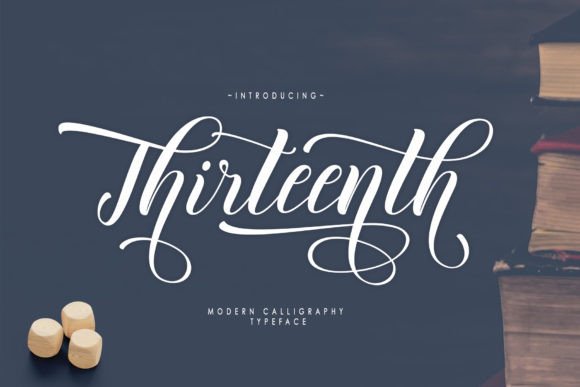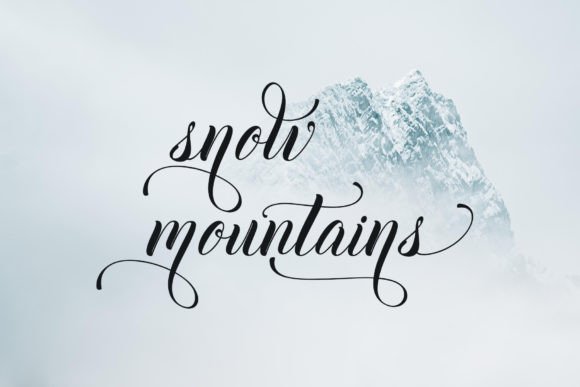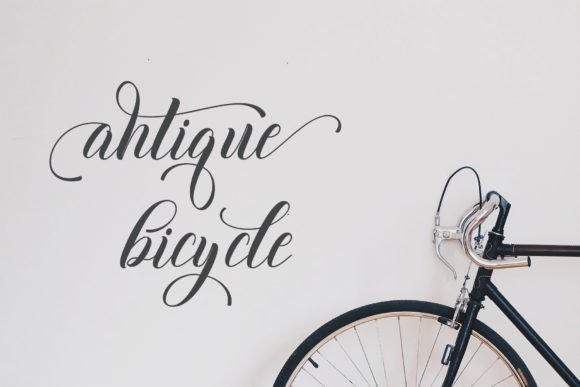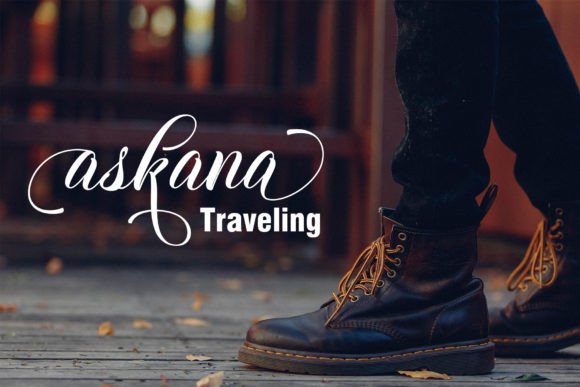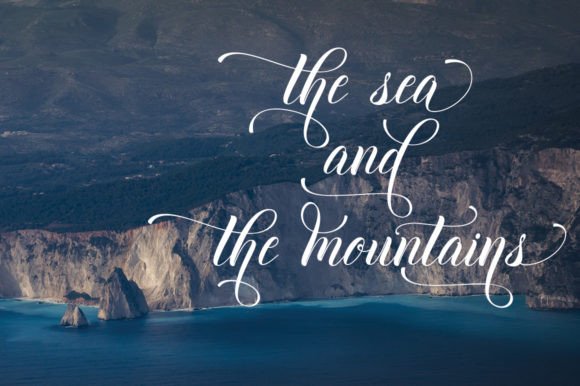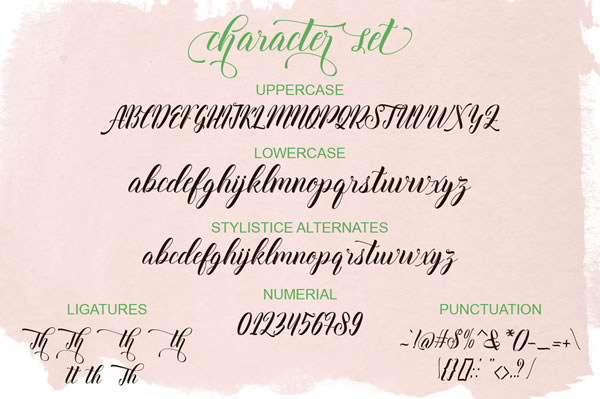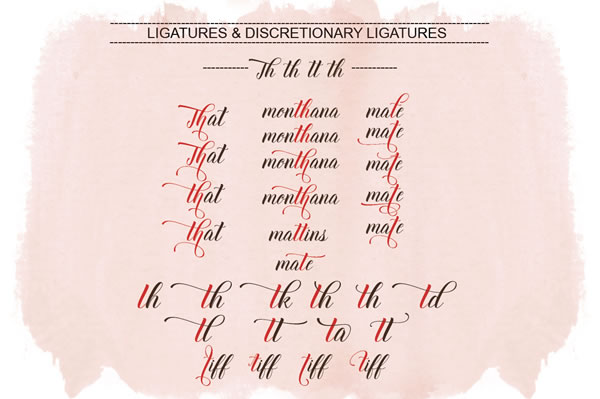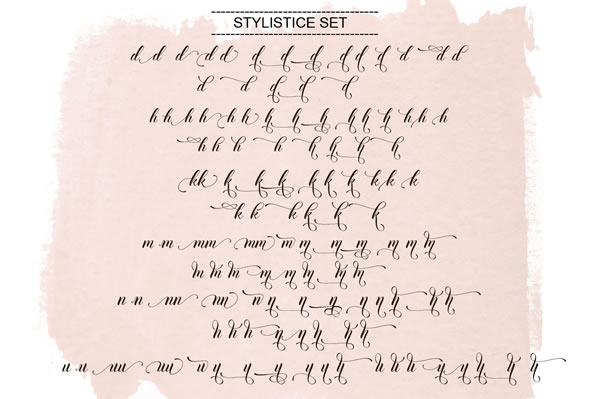
Thirteenth Script Font
About Thirteenth Script Font
Thriteenth is a stunning handscripted font packed with 824 unique glyphs.
The font is packed with opentype features such as:
PUA Encoding (Privite Use Areas)
Swashes
Stylistic Sets
Stylistic Alternates
Discretionary Alternates
Ligatures